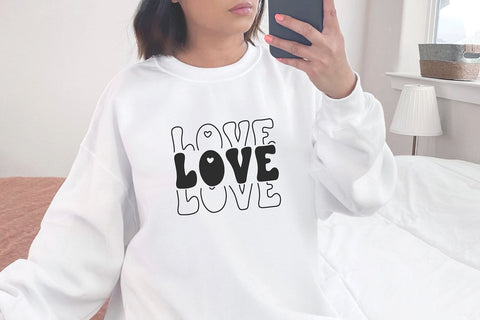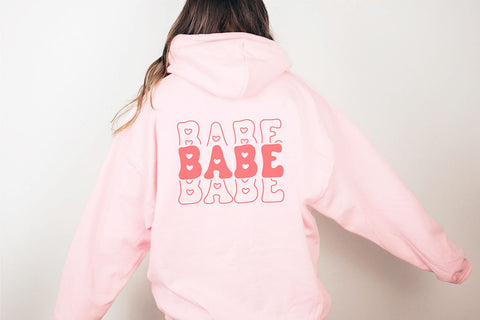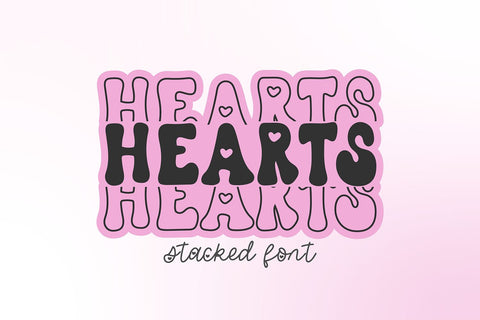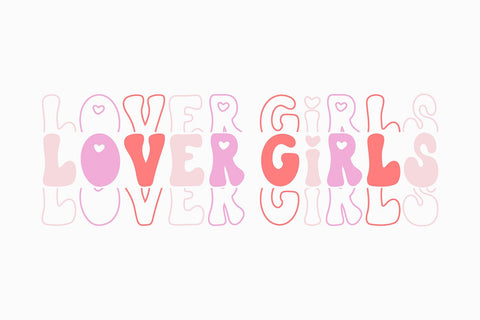
Hearts Stacked Valentine Font
"Hearts Stacked" a retro stacked Valentine's Day font.
This font is a bold display font that is perfect for social media or crafty projects. Use if for branding, crafts for decor, invitations, and more! All caps glyphs, numbers, and punctuation marks.